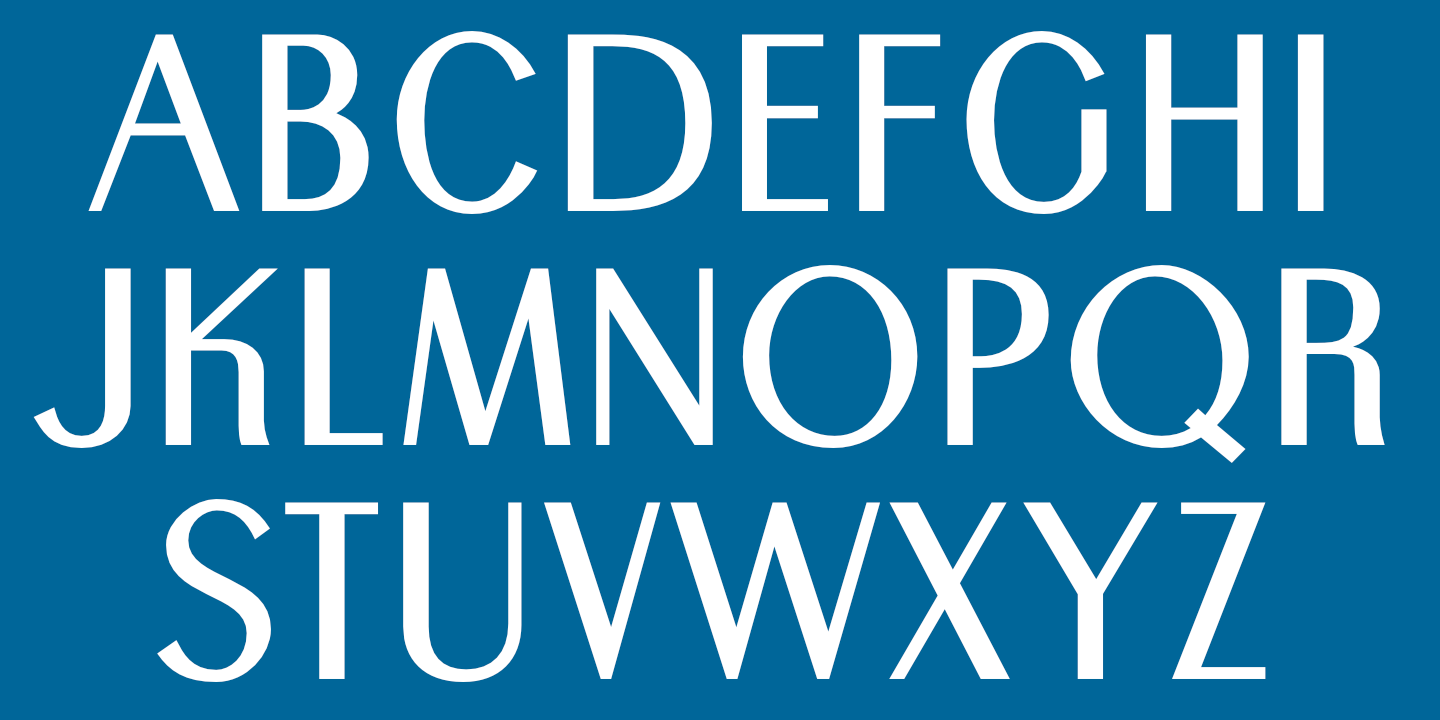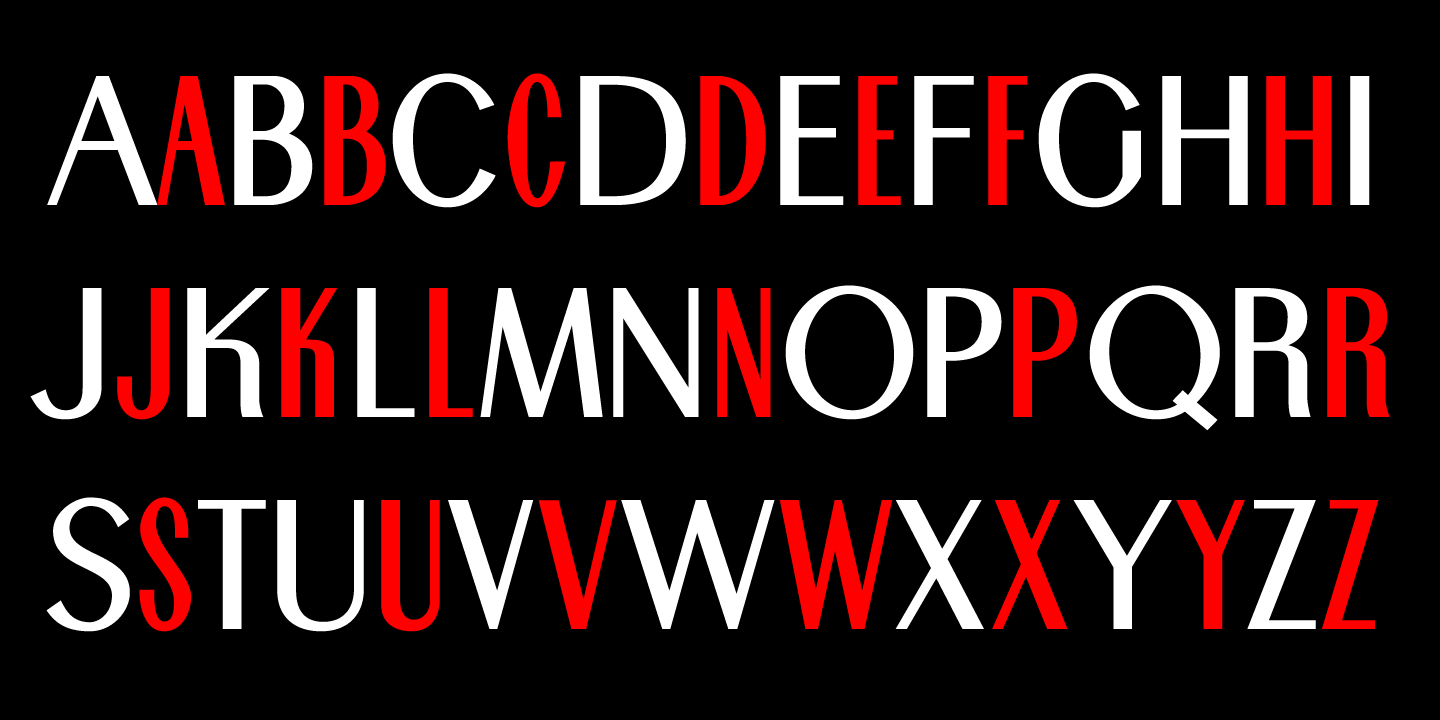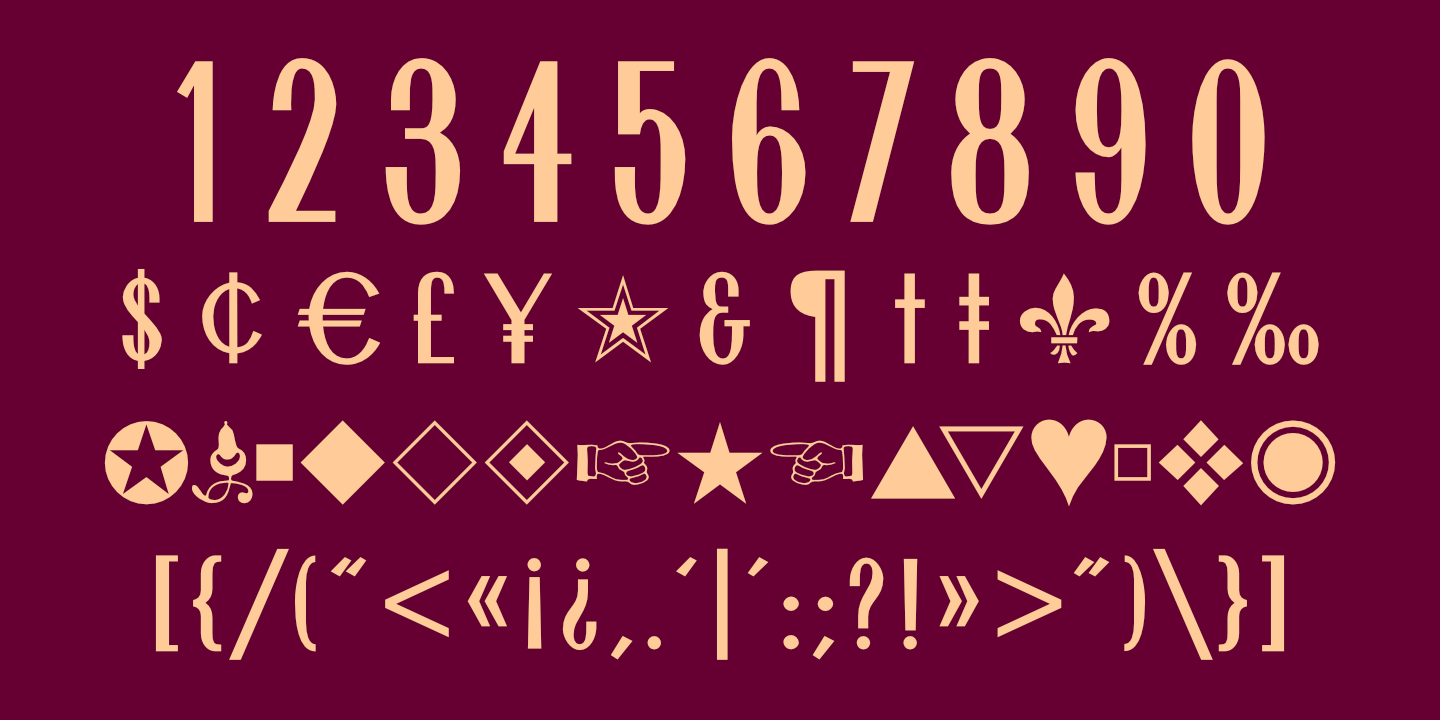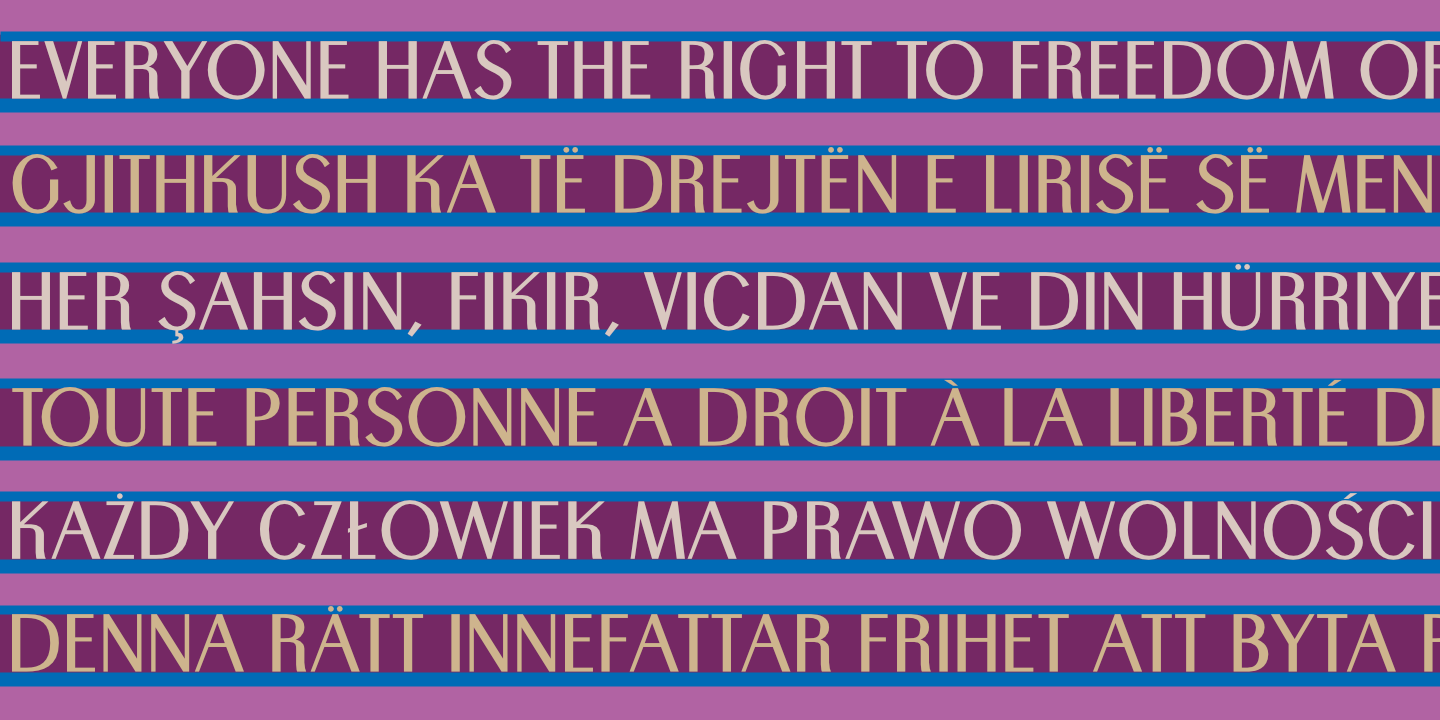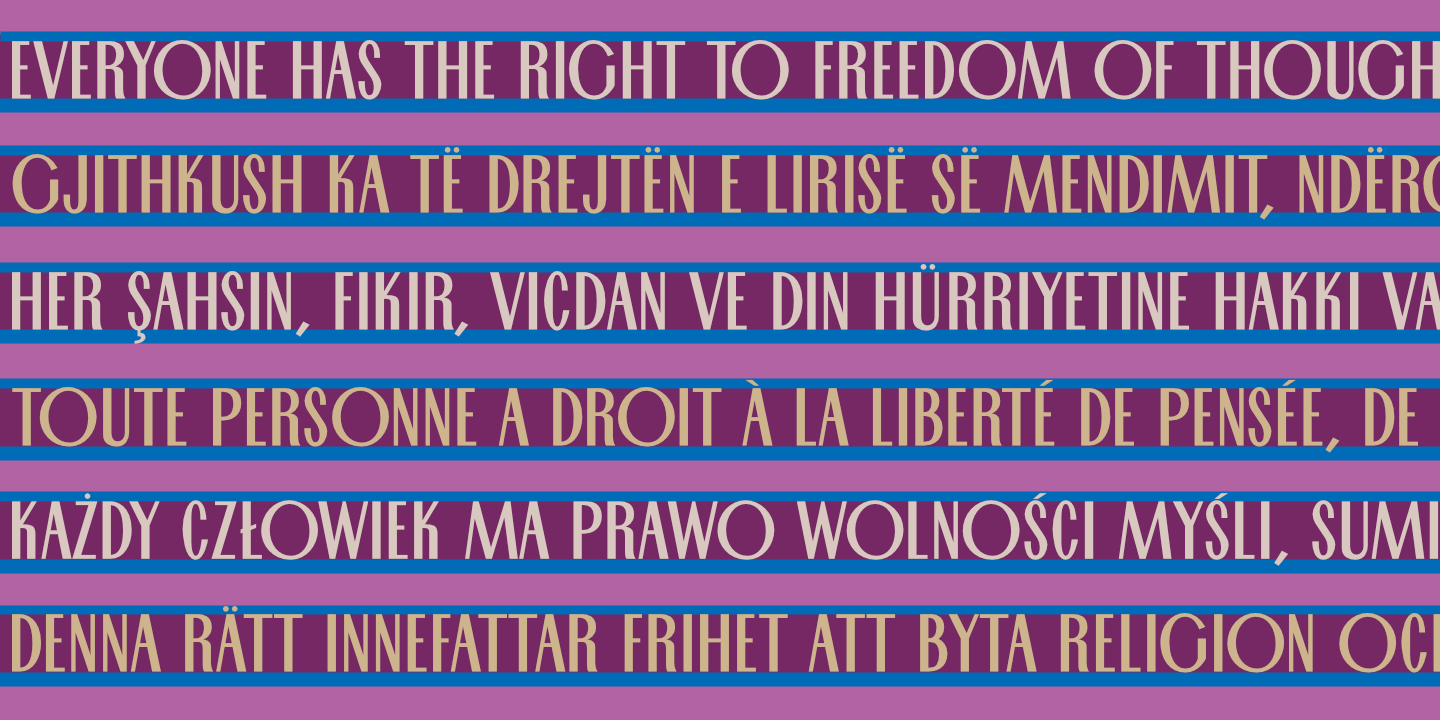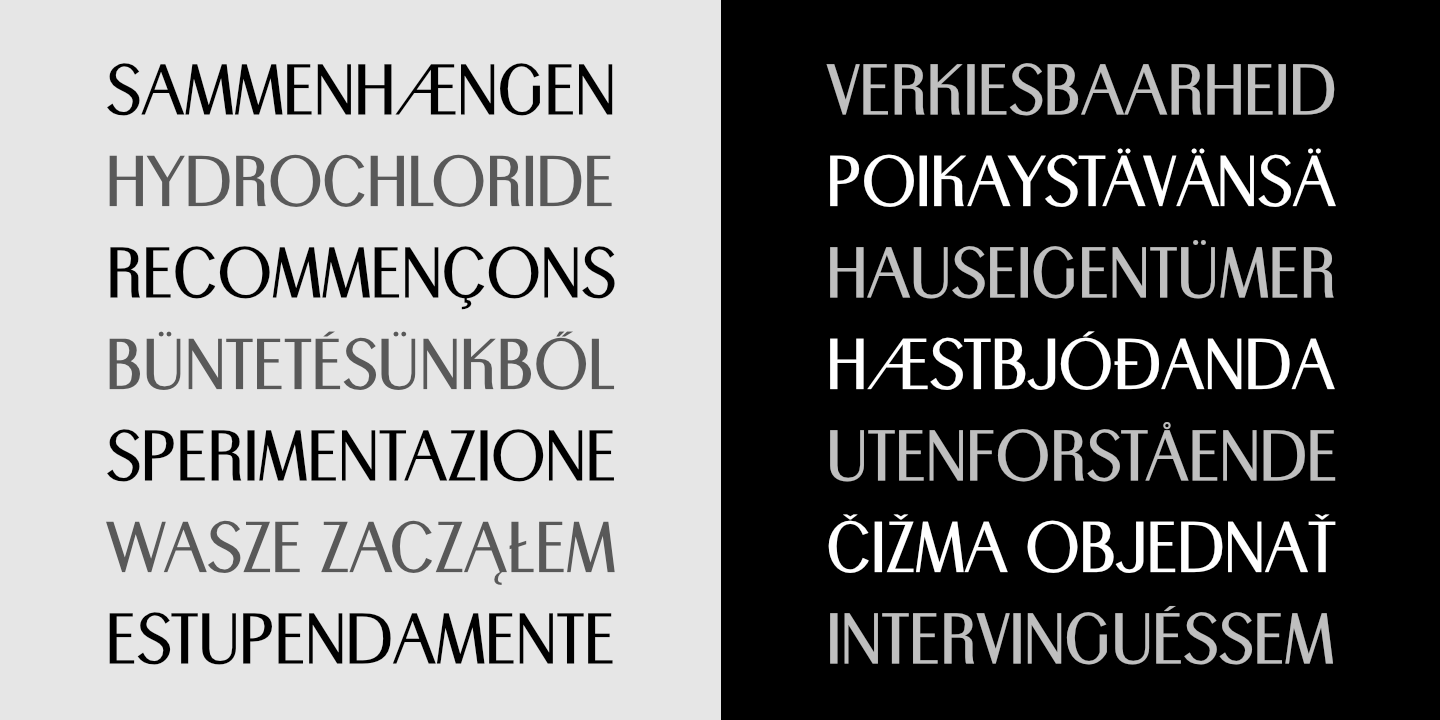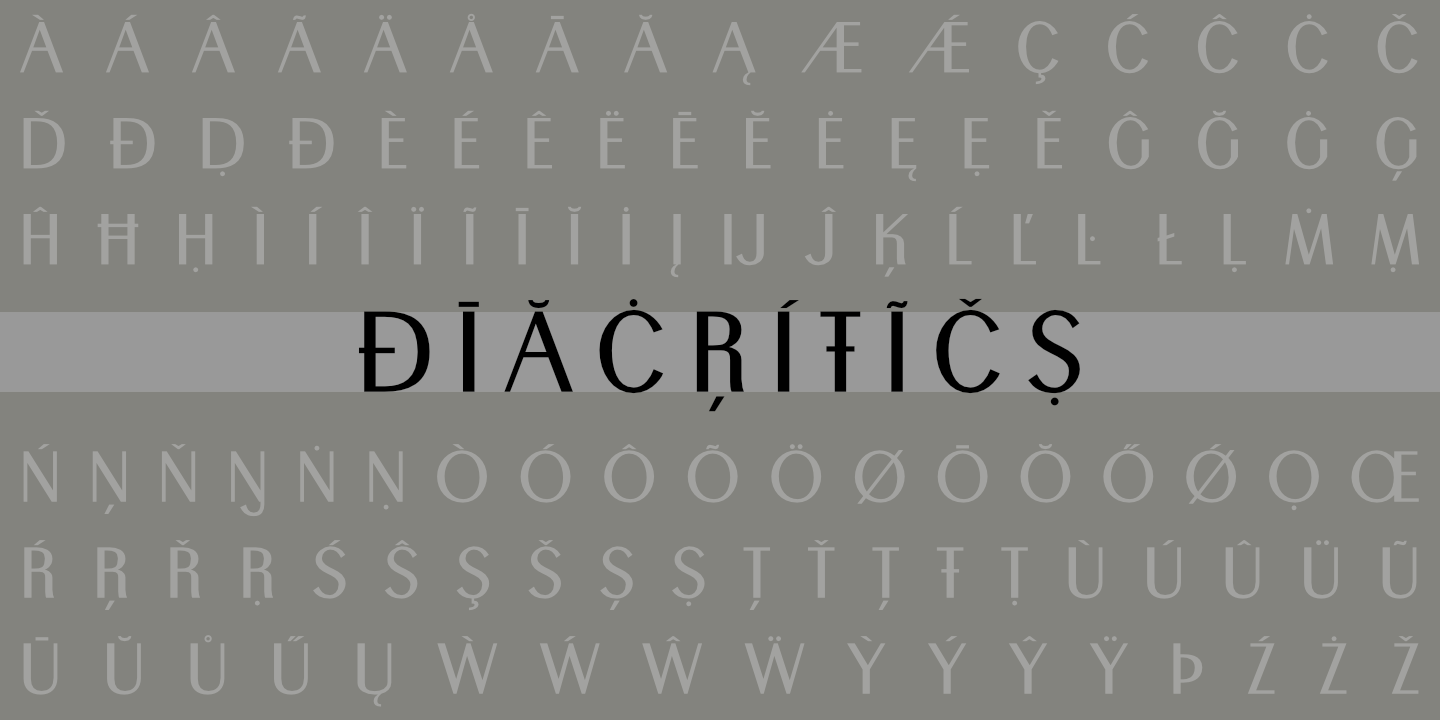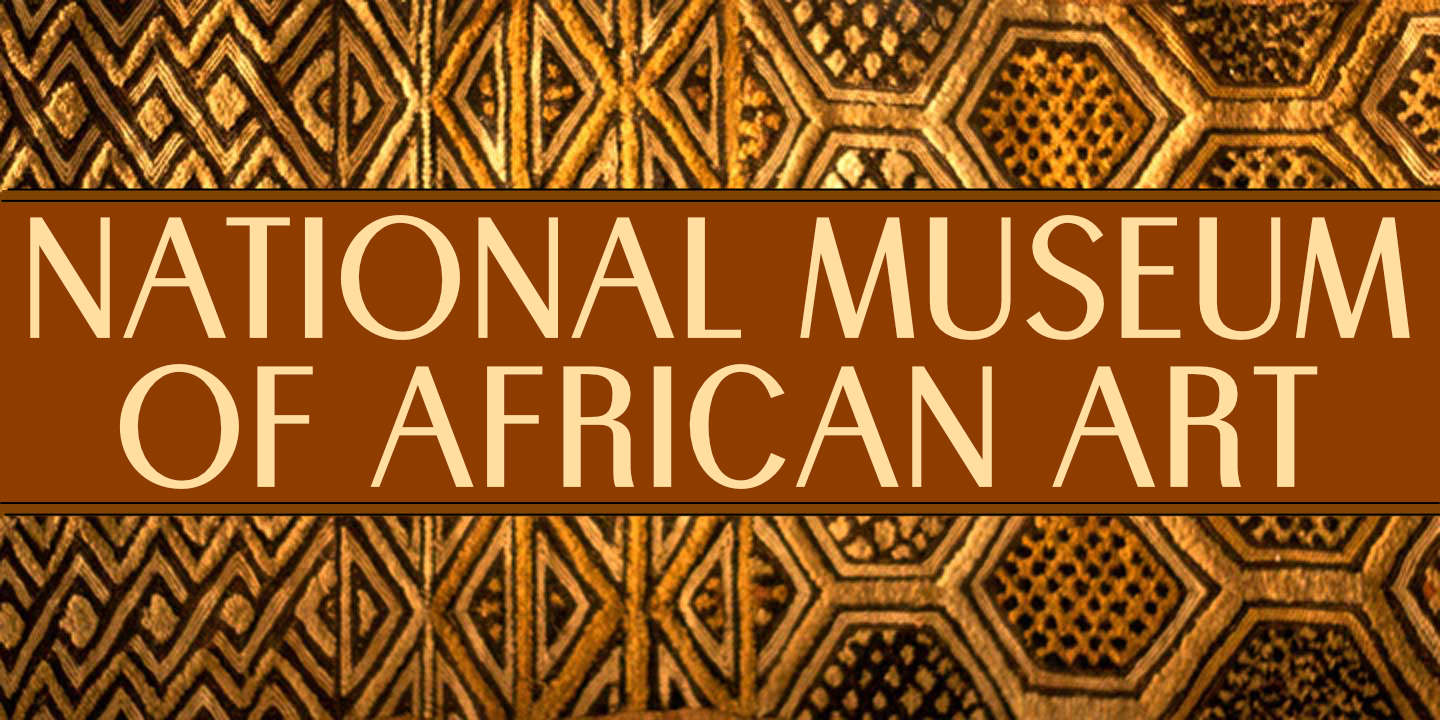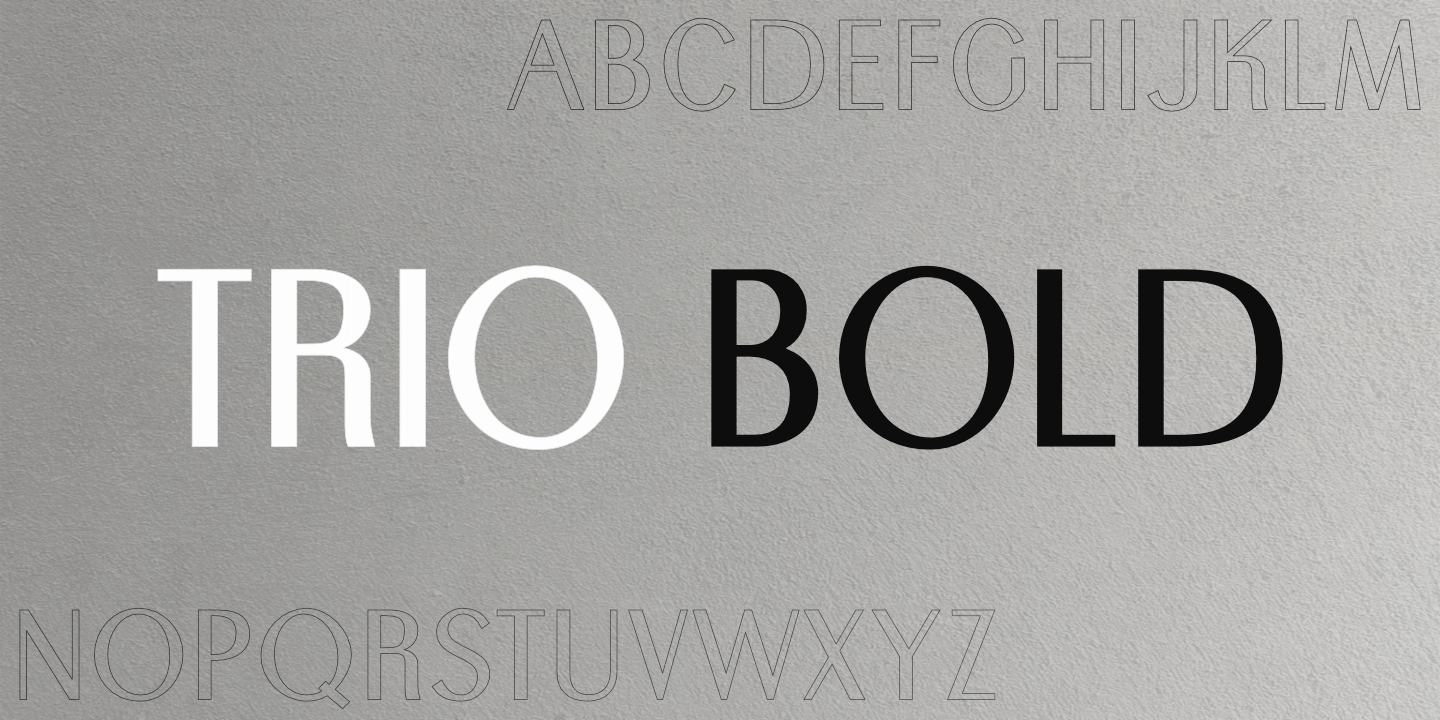
Trio CT Bold: Basic Latin alphabet. See Glyphs for details.
Trio CT Bold: Art deco alternates for some letters, shown in red. See Glyphs for details.
Trio CT Bold: Numerals, basic punctuation, currency symbols, and a sampling of ornaments.
Trio CT Bold supports most European languages that use the Latin alphabet. Art deco style (all caps) below.
Notice that light text on a dark background appears slightly heavier than dark text on a light background.